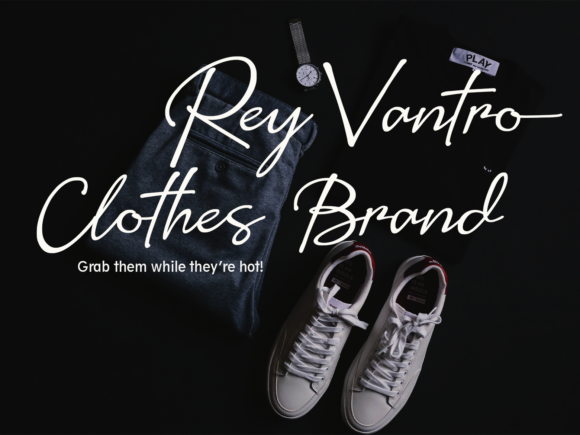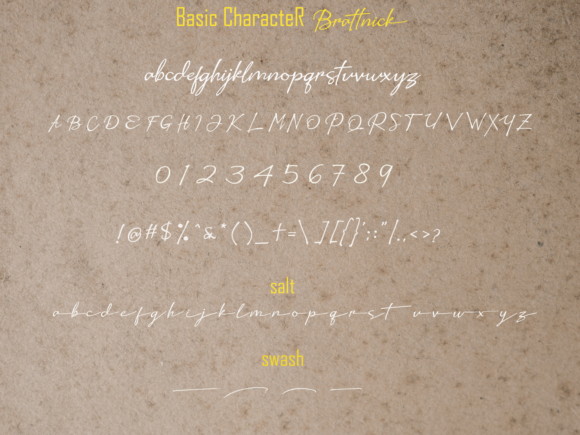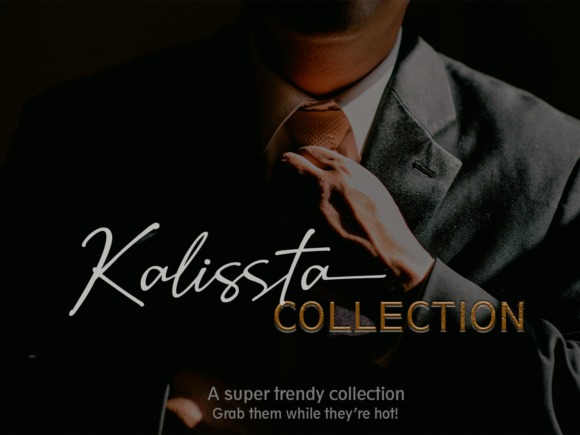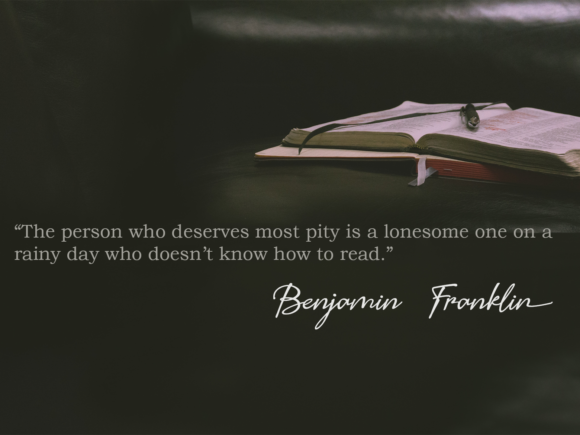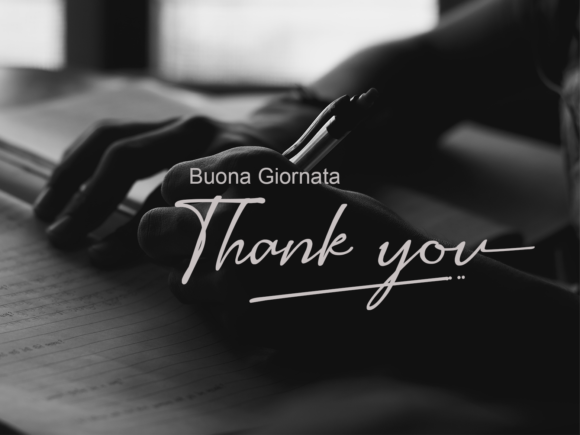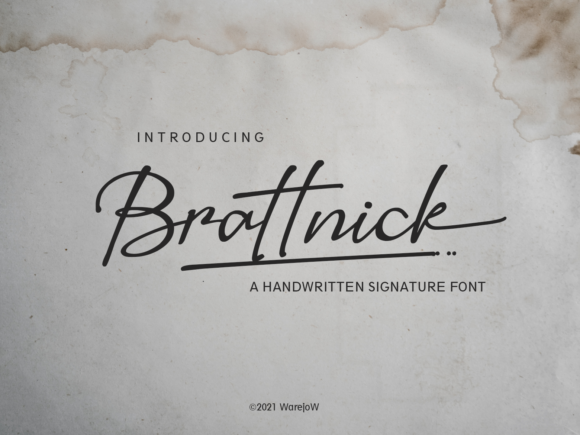
Introducing Brattnick Font: Elevate Your Designs with Elegance and Personality
In the world of digital design, fonts play a pivotal role in conveying messages, evoking emotions, and creating lasting impressions. Among the myriad of fonts available, the Brattnick Font stands out as a beacon of elegance and uniqueness, offering designers and crafters a tool to infuse their projects with a personalized touch. This article delves into the characteristics, benefits, and applications of the Brattnick Font, exploring how it can transform your designs into memorable pieces of art.
The Essence of Brattnick Font
Brattnick is a distinctive and sophisticated handwritten font, meticulously crafted to bring a touch of grace and individuality to various design projects. Its elegant strokes and fluidity make it an ideal choice for designs that demand a personal and refined aesthetic. Whether you’re working on wedding invitations, thank you cards, greeting cards, logos, or any other creative endeavor, Brattnick offers the versatility to enhance your work with its unique charm.
Key Features of Brattnick Font
• Elegant Handwritten Style: Brattnick boasts a beautiful, handwritten appearance that adds a layer of sophistication and warmth to any design.
• Versatility: Its adaptability makes it suitable for a wide range of projects, from delicate wedding invitations to compelling logos.
• PUA Encoding: Brattnick is PUA (Private Use Area) encoded, which means it includes an extensive range of glyphs and swashes. This feature allows designers to access and incorporate various elements easily, offering more creative freedom.
Applications of Brattnick Font
The versatility of Brattnick Font makes it a valuable asset for designers and crafters engaged in various projects. Here are some of the key areas where Brattnick can make a significant impact:
• Wedding and Event Stationery: Create stunning wedding invitations, save-the-date cards, and event announcements that set the tone for an elegant and memorable occasion.
• Branding and Logos: Use Brattnick to craft unique and recognizable logos that convey a sense of sophistication and approachability.
• Greeting Cards and Stationery: Add a personal touch to greeting cards, thank you cards, and personal stationery, making them stand out in a sea of generic designs.
Brattnick Font offers several advantages to designers and crafters, making it a preferred choice for creative projects:
• Time Efficiency: With its comprehensive set of glyphs and swashes, Brattnick saves designers time that would otherwise be spent on customizing and fine-tuning their text elements.
• Enhanced Creativity: The font’s unique design and encoding allow for a high degree of customization, empowering designers to experiment with different styles and effects.
• Professional Finish: Brattnick’s elegant and refined appearance lends a professional finish to designs, helping creators to present their work with confidence.
Brattnick Font is more than just a typeface; it’s a creative tool that opens up new possibilities for designers and crafters looking to infuse their projects with elegance, personality, and a touch of sophistication. Its elegant handwritten style, versatility, and PUA encoding make it an invaluable resource for a wide array of design applications. Whether you’re working on wedding stationery, logos, or greeting cards, Brattnick offers the perfect blend of beauty and functionality to elevate your designs to the next level.